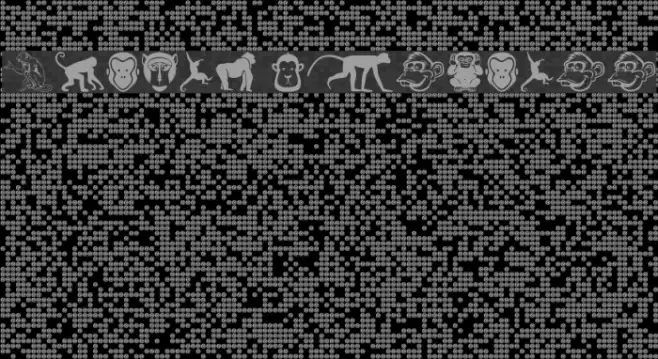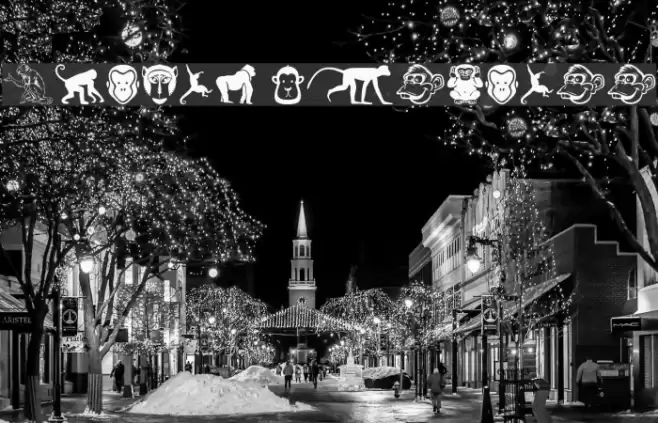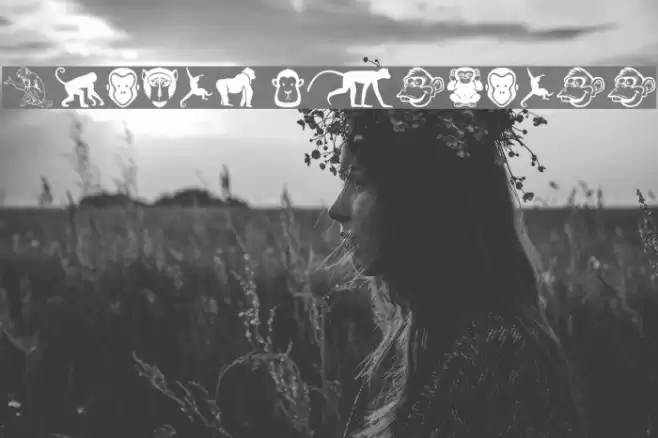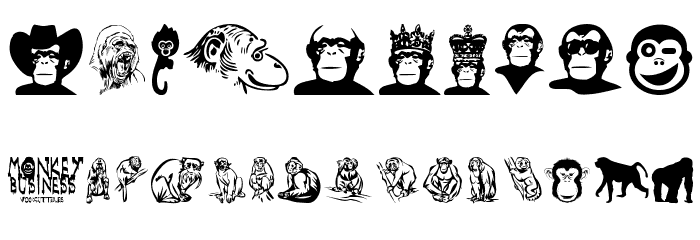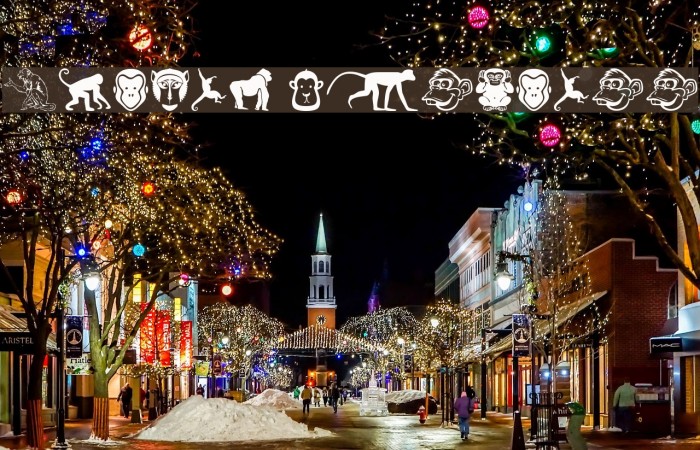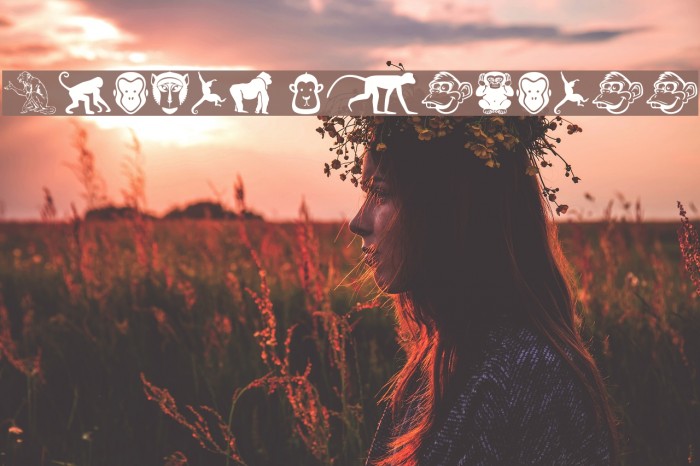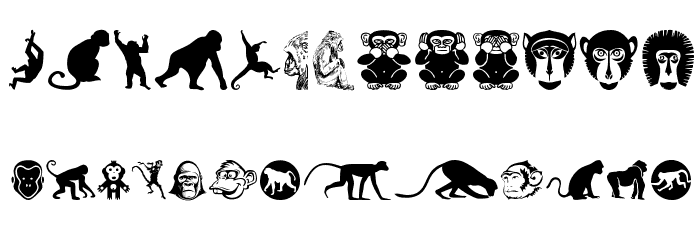
Monkey Business Font
Monkey Business Description
This collection features a playful and diverse array of monkey-themed illustrations, each with its own unique style and character. The designs range from simple, bold outlines to more detailed and textured depictions, capturing the essence of various monkey species and expressions. The characters are presented in a variety of poses and settings, from playful and mischievous to calm and contemplative. The use of black and white adds a classic and versatile touch, making these designs suitable for a wide range of applications. The overall style is whimsical and engaging, appealing to both children and adults.
A whimsical collection of diverse monkey-themed illustrations in black and white from Dingbats fonts.
- Proposed Projects: These illustrations are perfect for children's books, educational materials, playful branding, and merchandise such as t-shirts and mugs.
- Overall Style: Whimsical
- Use Case: Logos, Merchandise, Children's Books